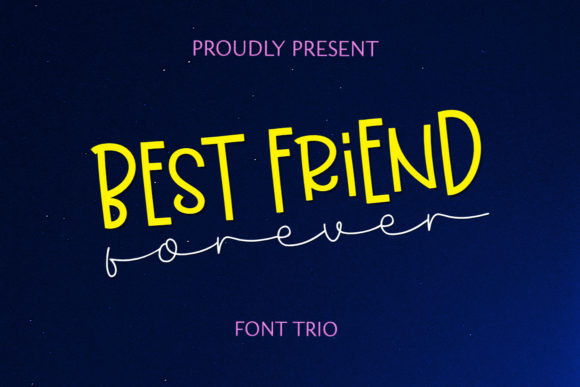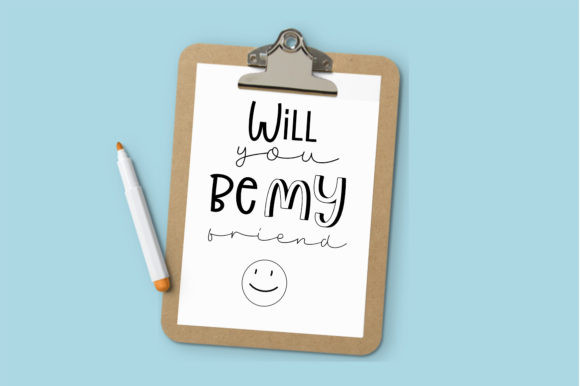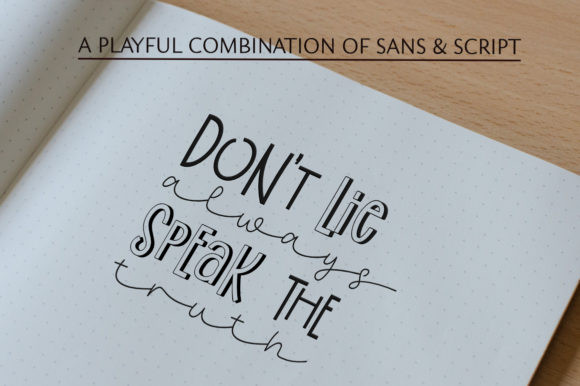
Best Friend Forever Font
Best Friend Forever embodies fun, quirkiness and authenticity. This enchanting handwritten font will turn any creative idea into a true standout.